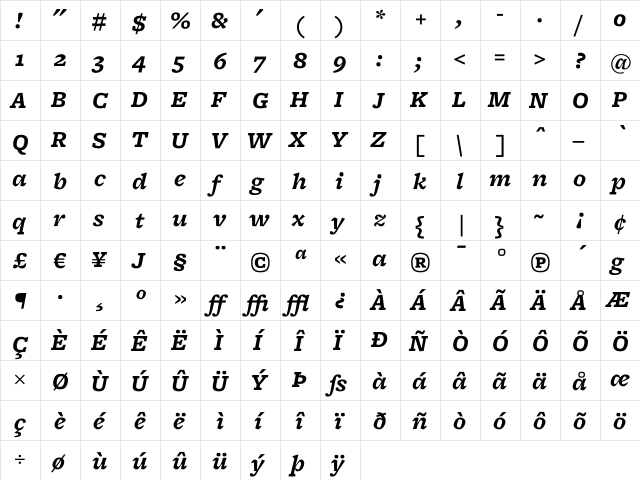
Freight Micro Bold Italic Font Preview
| Style | Micro Bold Italic |
| Foundry | Joshua Darden & Phil's Fonts, Inc |
| Designer | Joshua Darden |
Design Context for Freight Typeface
Freight offers clean, dependable letterforms without strong stylistic allegiance, making it a practical choice for designers who need flexibility. The dynamic lean of this cut emphasises speed and emphasis in any layout. The heavy weight commands attention and anchors typographic hierarchies.
Pro Tip: Try Freight for annotation and caption copy alongside an upright companion — the contrast in angle creates a dynamic but ordered typographic system.